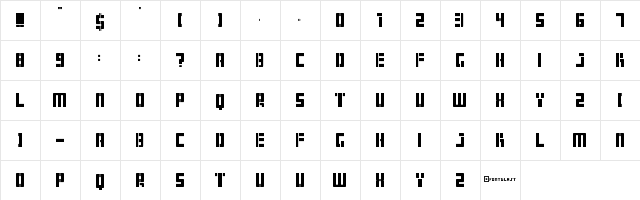
Hangar Regular
| Designer | Jamie Place |
Design Context for Hangar Typeface
Hangar takes a measured approach to typography — its balanced proportions and neutral character make it a reliable workhorse for both digital and print work.